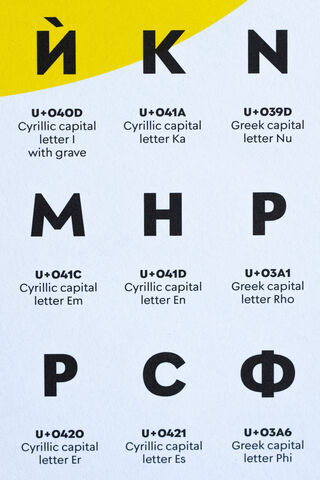
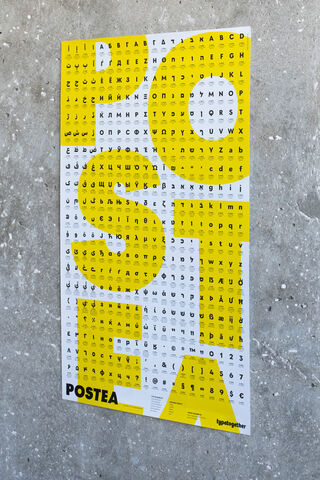
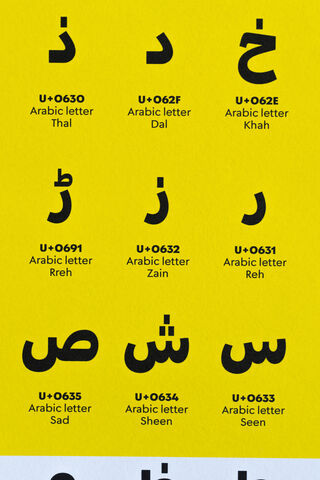
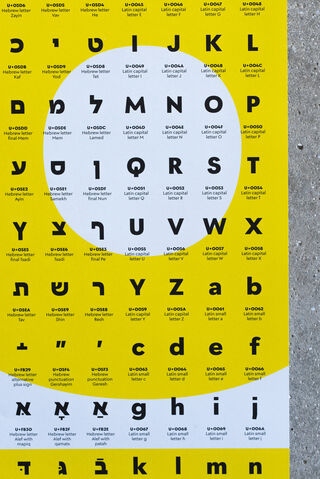
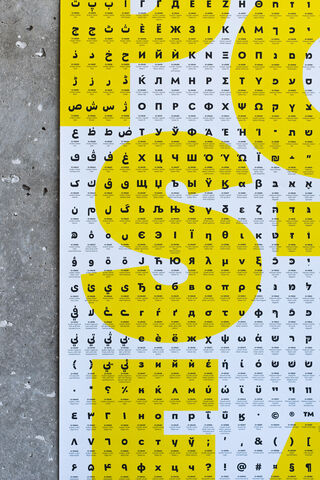
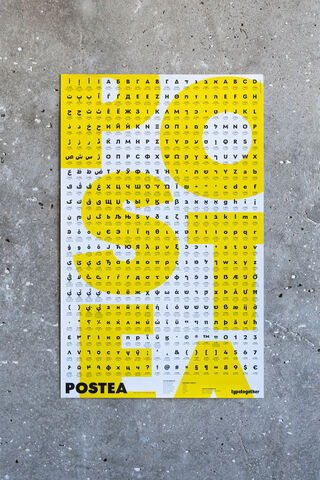
Postea Scripts poster
Celebrating the release of Postea across multiple scripts, this poster brings the family’s distinctive forms and multiscript character together in one typographic composition.